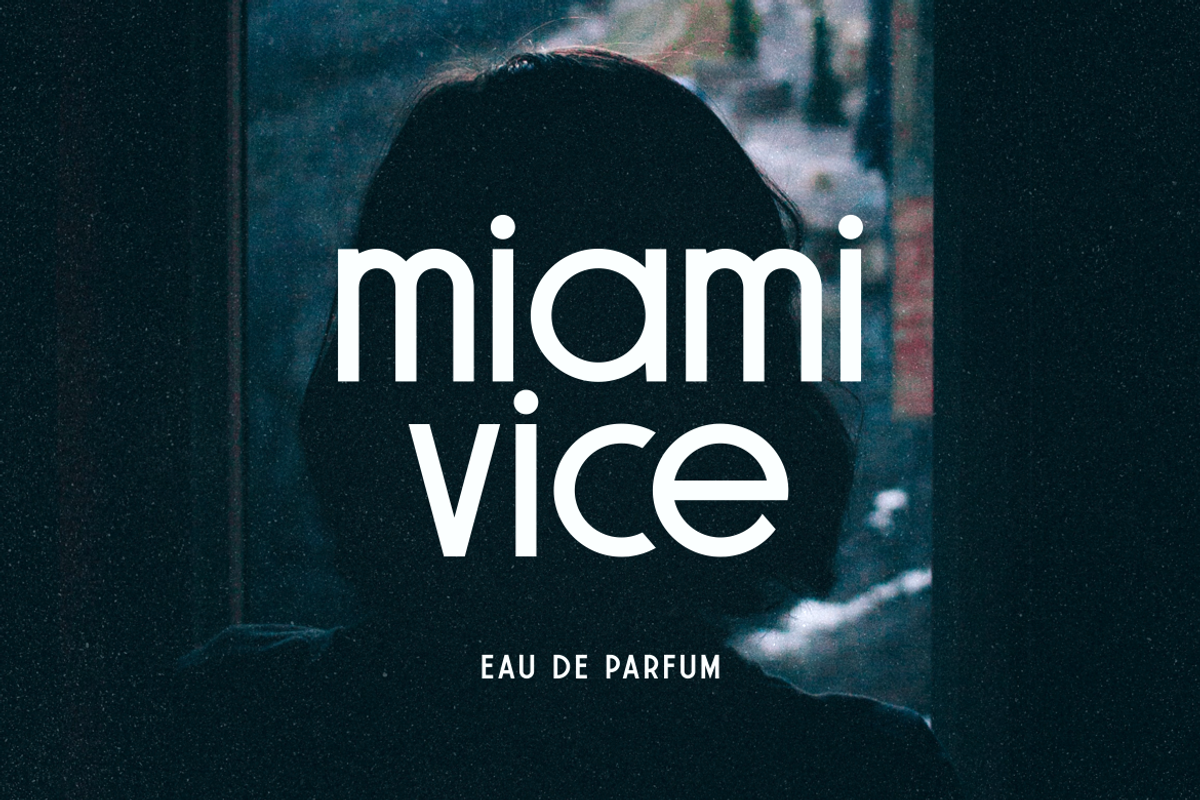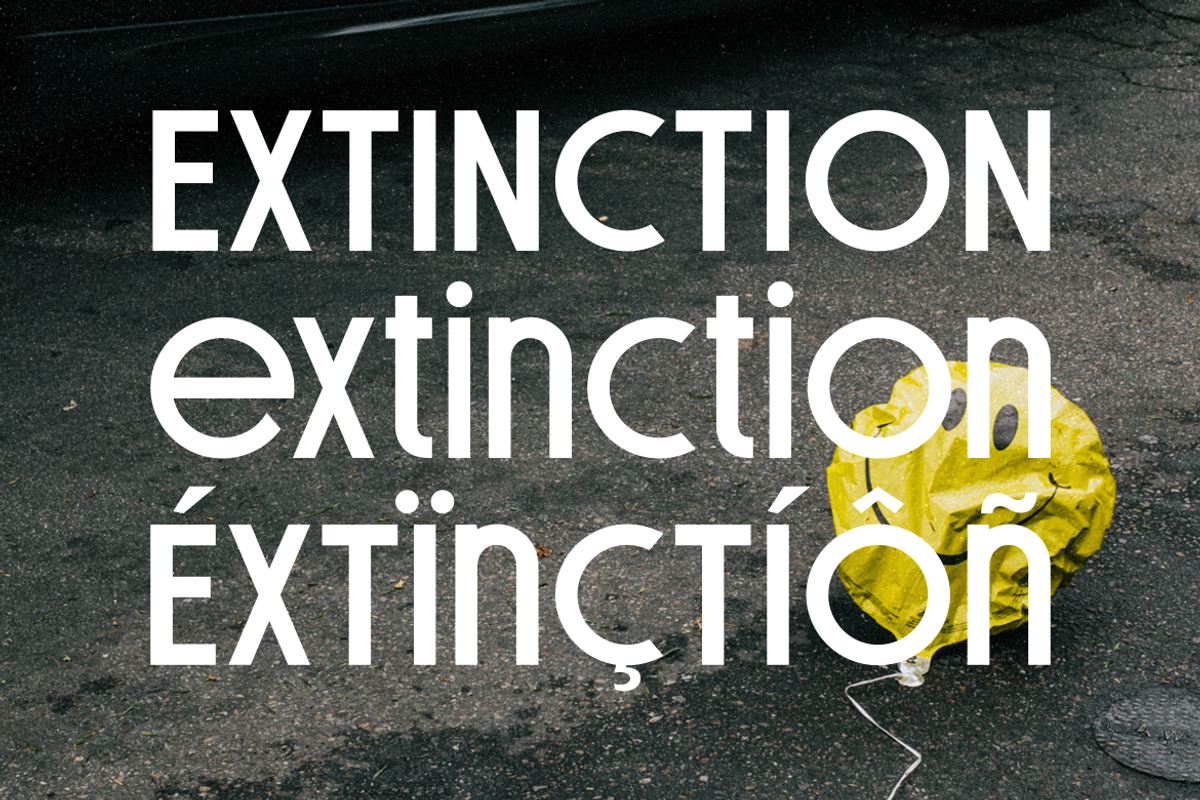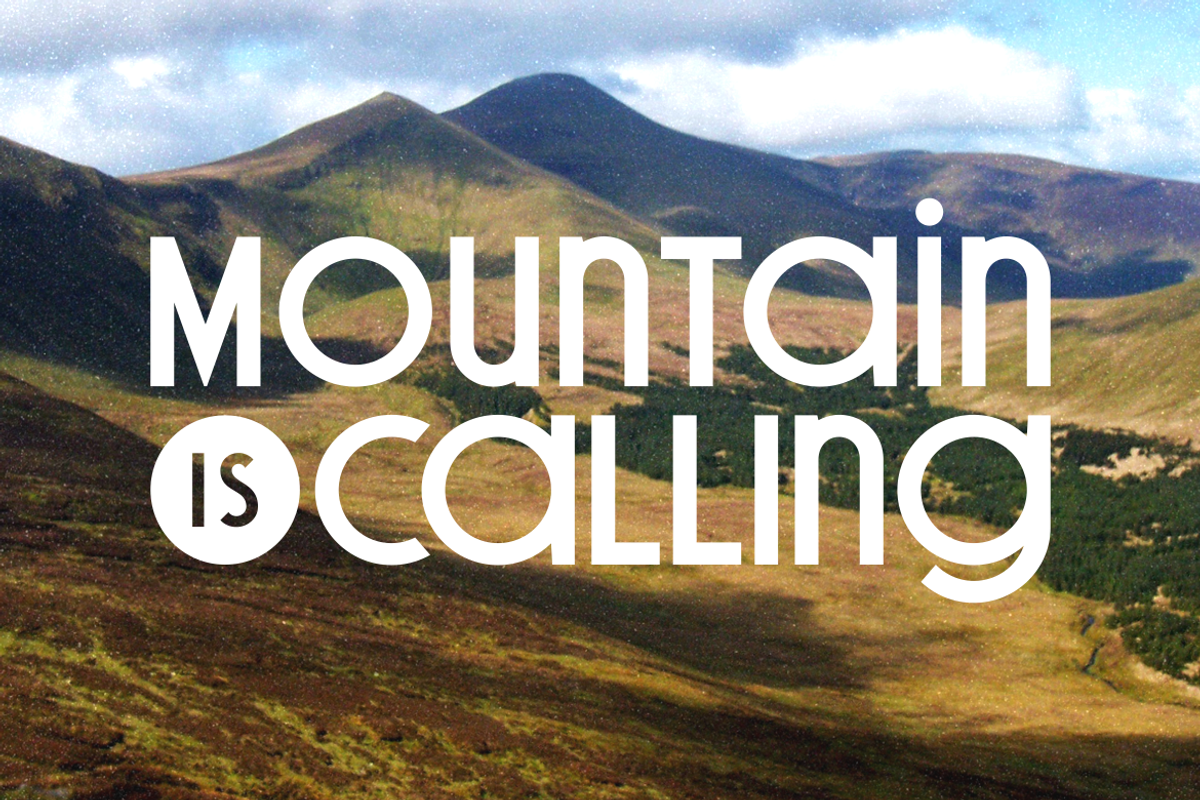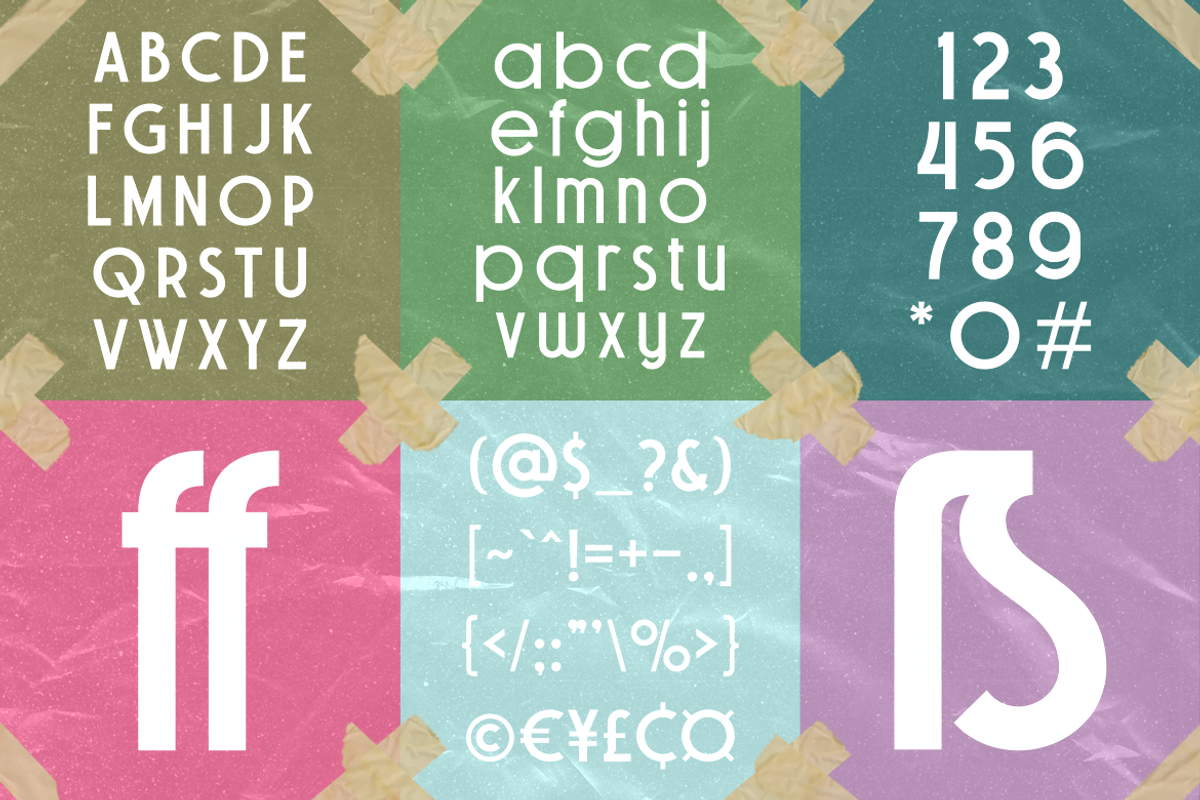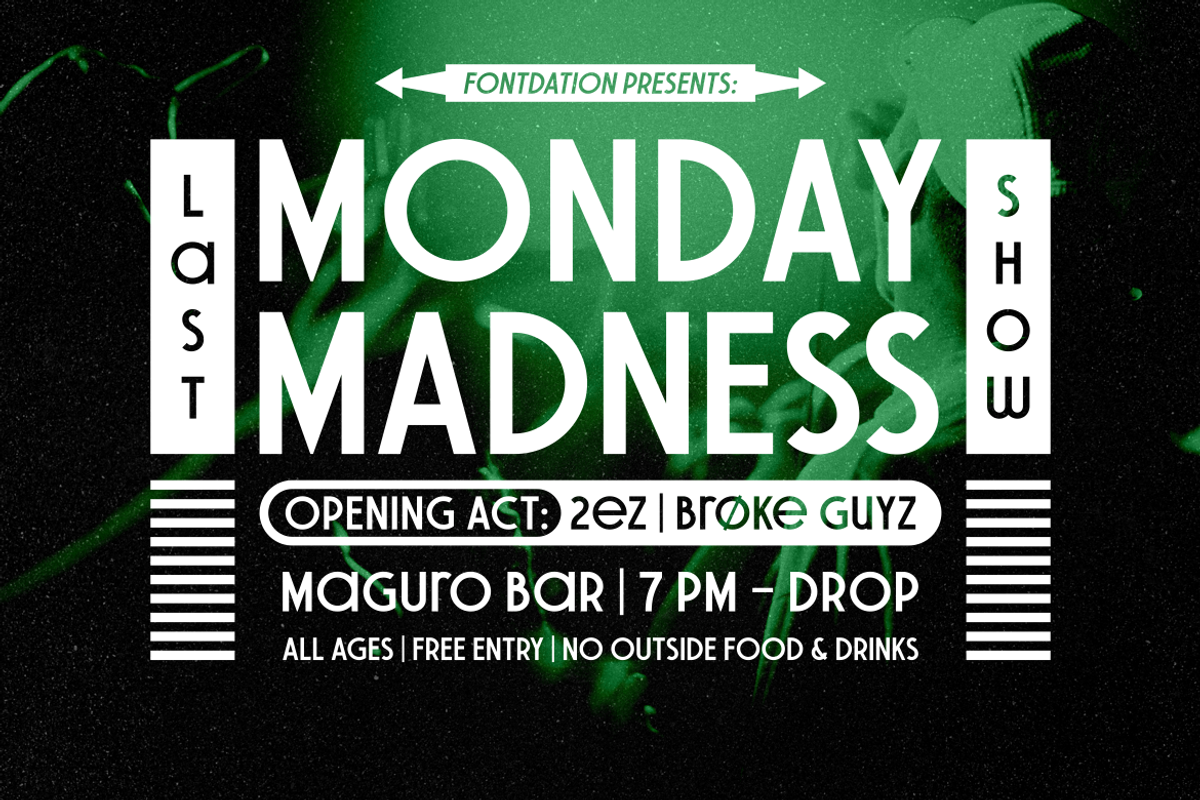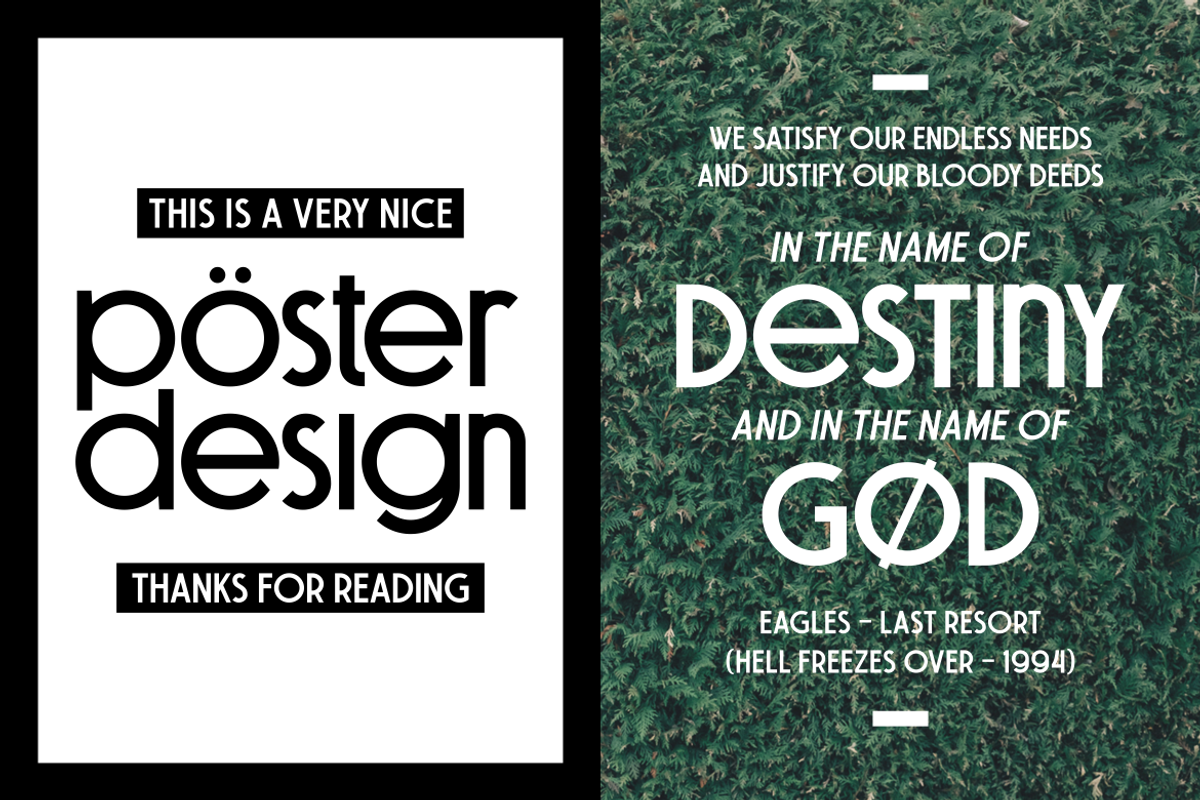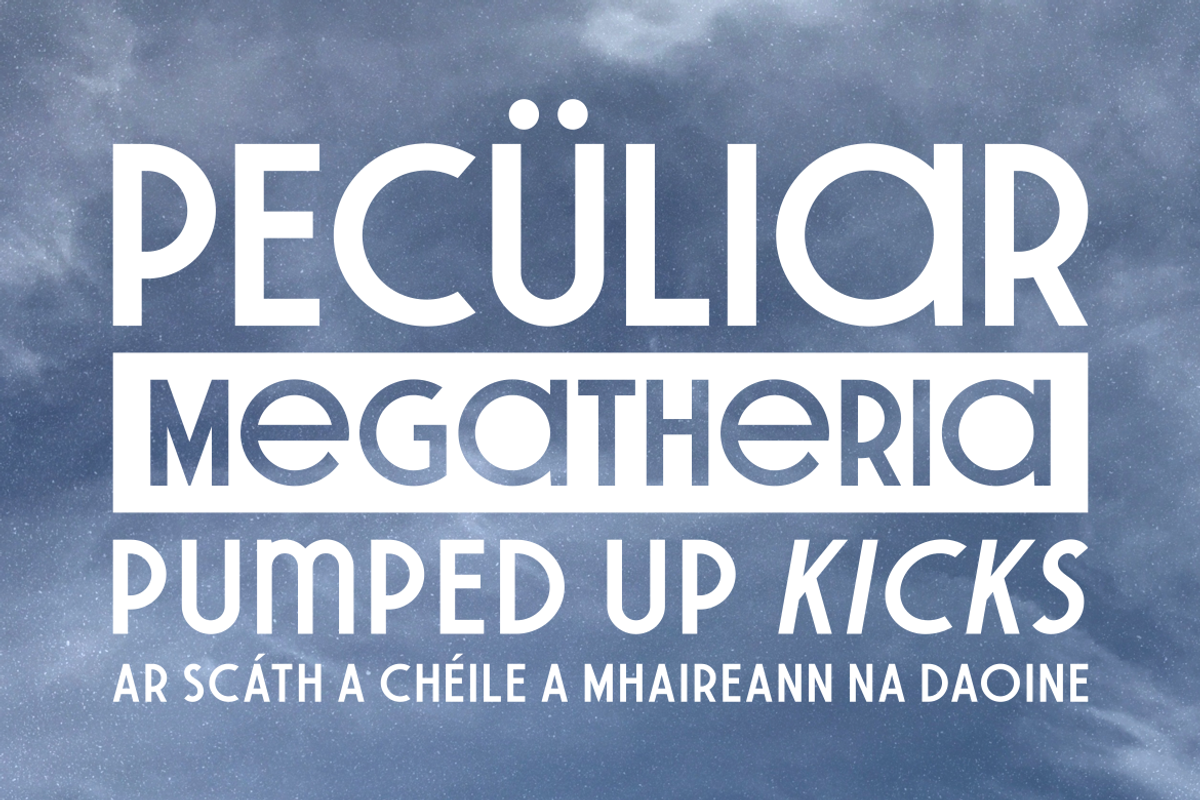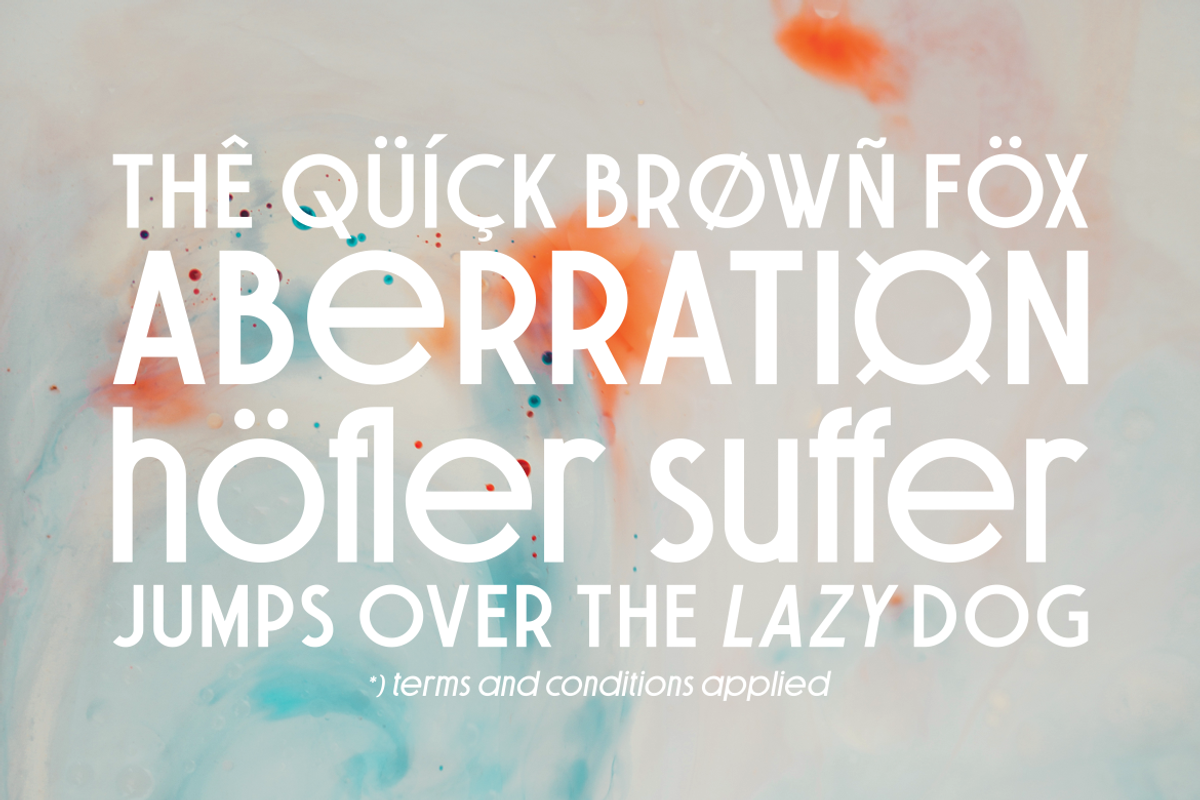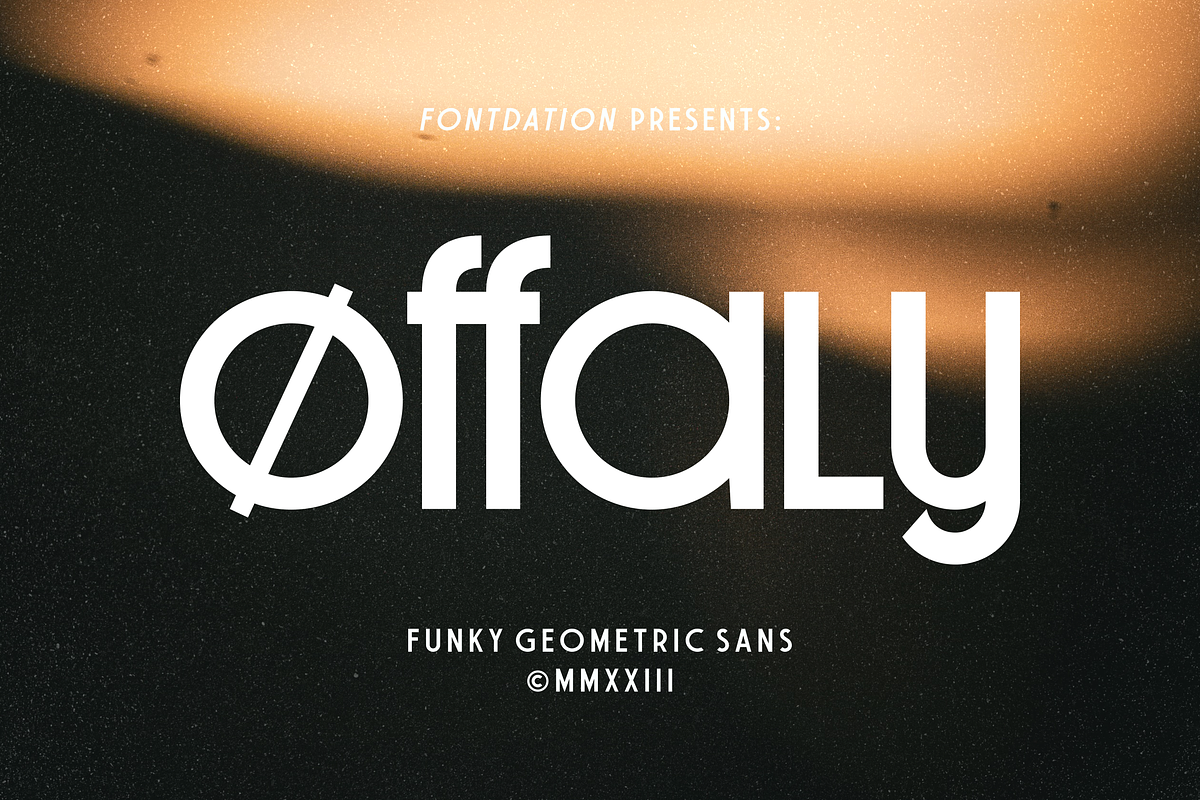
Offaly | Geometric Sans
Introducing Offaly, a funky geometric sans serif font. Offaly comes with a smooth and clean characteristics. Combine the upper and lowercase to get the harmonic letter combinations. Suits best for branding, headline, quote/poster design, etc.
- Standard characters and multiligual characters, and some ligatures,